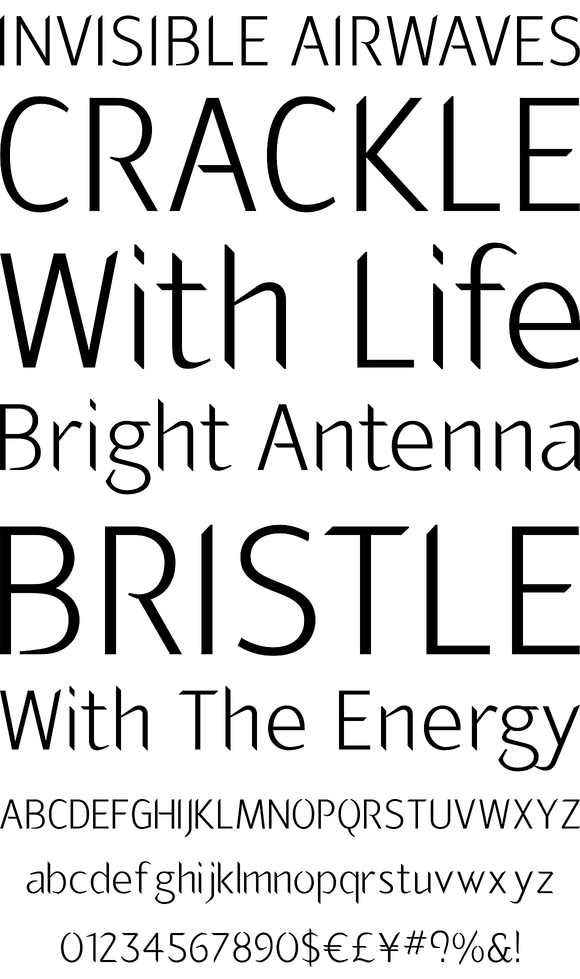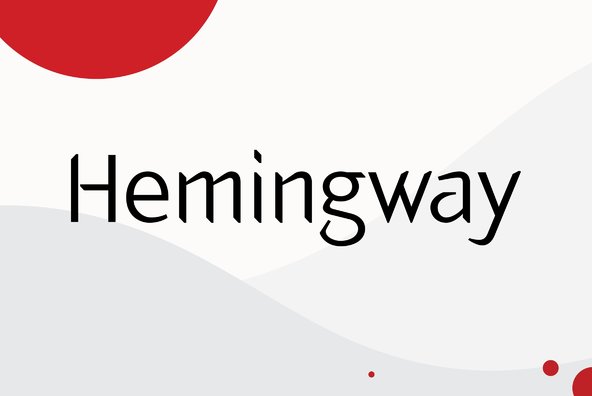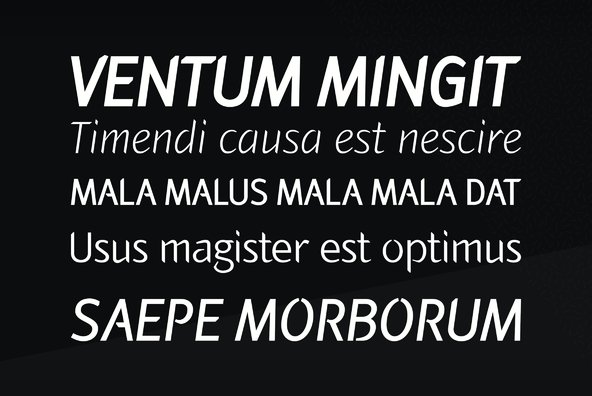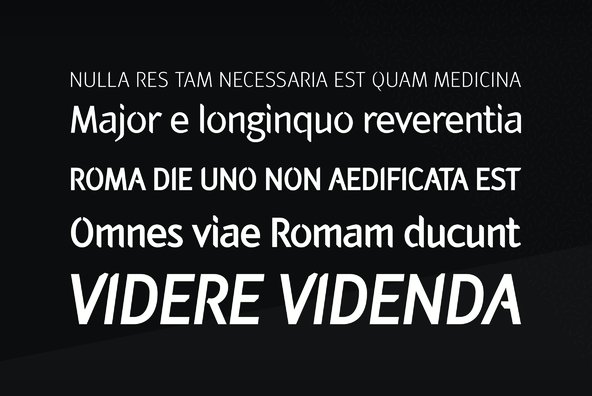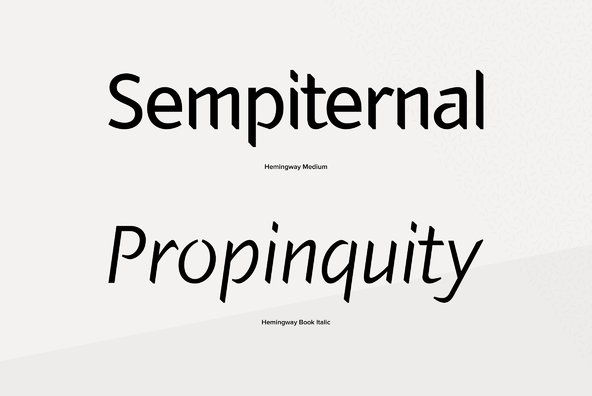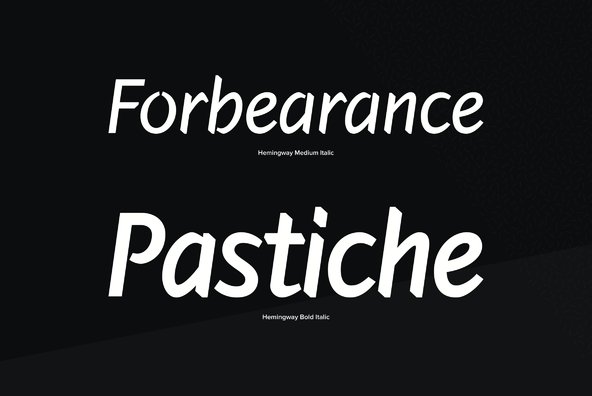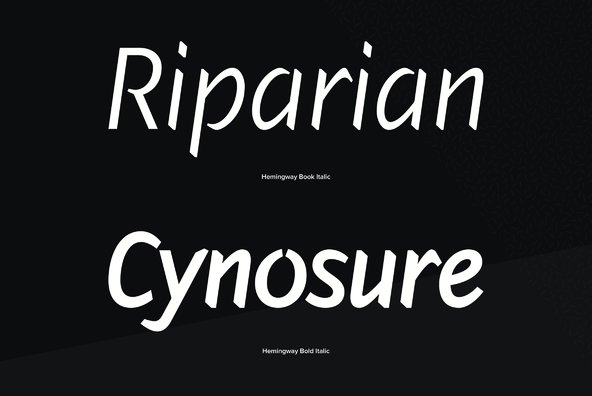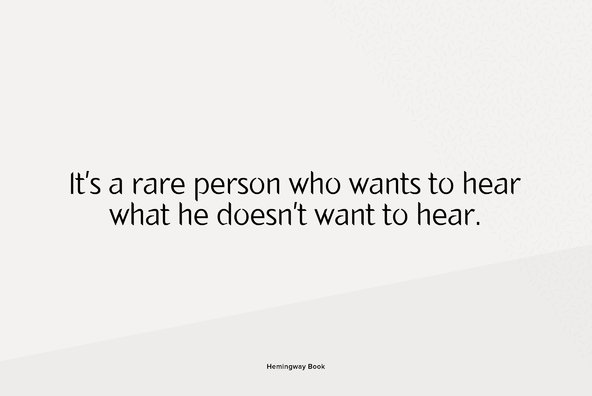
Hemingway Pro
Hemingway the latest typeface from Alessandro Segalini was inspired by the prize winning novel The Old Man and the Sea by Ernest Miller Hemingway. Segalini designed his typeface to carry the meaning of sharpness and harshness, and at the same time to show a stiff and a soft quality - the same qualities in which the nature of the sea is revealed in Hemingway's novel, a book that indeed speaks about the fairness of nature.